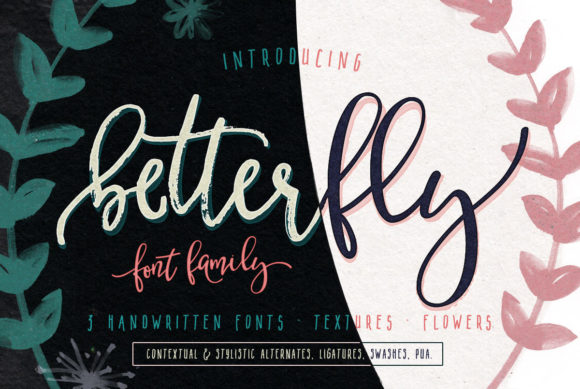
The Designer’s Dream Font: A Deep Dive into BetterFly
I still remember the frustration of working on a project, hours spent crafting the perfect design, only to be held back by a font that just didn’t cut it. The client wanted elegance, uniqueness, and readability – a tall order, right? That’s when I stumbled upon BetterFly, a beautiful script font that has since become a staple in my design toolkit. With its impressive 565 unique glyphs and extensive OpenType features, BetterFly has been a game-changer for my designs.
An Honest Review of BetterFly
- ✨ Extensive Glyph Library: With 565 unique glyphs at your disposal, creativity knows no bounds. Whether you’re working on a branding project, crafting a beautiful quote, or designing a wedding invitation, BetterFly has got you covered.
- ✅ OpenType Features Galore: This font supports a wide range of OpenType features, including Contextual Alternates, Discretionary Ligatures, Stylistic Alternates, Swashes & Swooshes, and more. These features allow you to add a personal touch to your designs and make them truly stand out.
- 🔥 PUA Encoding: BetterFly is completely PUA (Private Use Area) encoded, which means every letter has been optimized for perfection. This results in a coherent font where all words strike the perfect balance between readability, elegance, and uniqueness.
While BetterFly is an exceptional font, there are a few minor quirks to be aware of:
- ⚠️ Learning Curve: With so many glyphs and OpenType features at your disposal, it may take some time to get familiar with the font. However, trust me, it’s worth the investment.
- 🤔 Occasional Kerning Issues: As with any font, you may encounter occasional kerning issues, especially when using certain character combinations. However, these issues are relatively rare and can be easily addressed with a bit of manual adjustment.
The Backstory Behind BetterFly
According to the font’s creator, BetterFly was inspired by the beauty of handwritten scripts and the need for a versatile font that could be used in a variety of design applications. The designer spent countless hours perfecting the font, ensuring that every letter and glyph was optimized for maximum readability and elegance.
| Is BetterFly suitable for body text? | While BetterFly is an elegant font, it’s primarily designed for display purposes. However, you can use it for body text in certain design applications, such as magazines or blogs, where a touch of elegance is desired. |